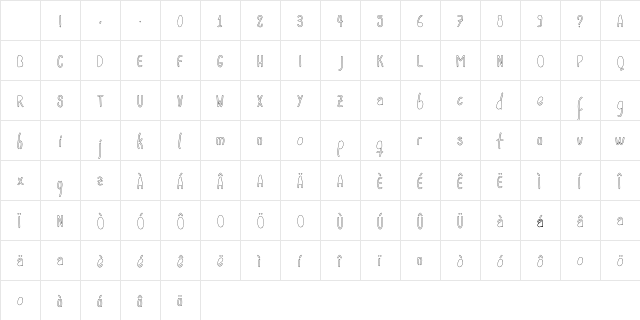
Complete AC Wanita Outline Counters glyph index. Displaying only characters natively supported by AC Wanita Outline Counters font.
AC Wanita is built around its visual character rather than neutral utility - its distinctive forms are designed to make an impression at display sizes.
Font Pairing: Pair with a clean neutral sans-serif for body copy to let AC Wanita's character lead without overwhelming the composition.
Pro Tip: Use AC Wanita exclusively at display sizes - it was designed to be seen, not read at length. Let a neutral companion handle body copy.
Who designed the AC Wanita Outline Counters font?